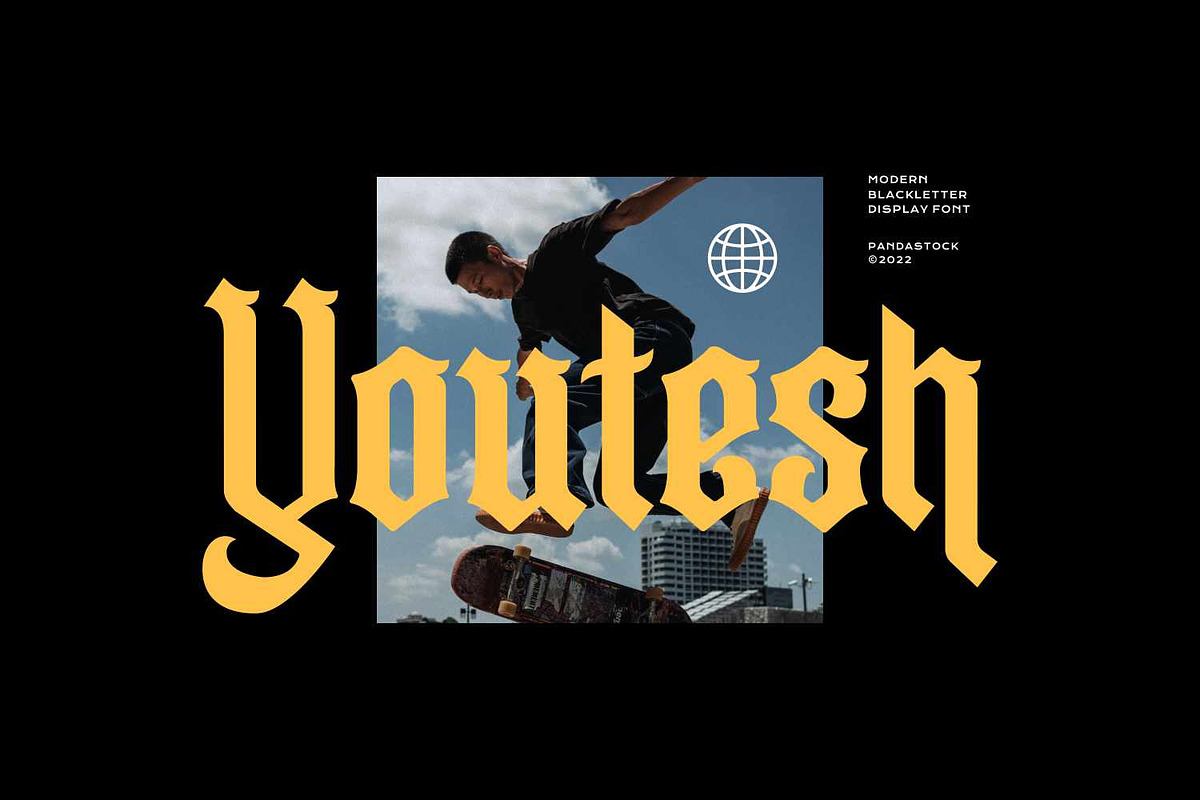
Youtesh Vintage Retro Fonts Free Download
You must purchase this font for commercial use. However, you can download Youtesh Vintage Retro Fonts Free Download for testing purposes. Youtesh is a bold and stylish vintage retro font, designed to evoke a nostalgic feel with modern flair. Perfect for logos, posters, branding, merchandise, and any project that needs a retro-inspired look, this font brings a creative and vintage aesthetic to your designs.
The combination of strong letterforms and retro design elements in Youtesh makes it ideal for projects related to music, fashion, events, or branding that want to capture the essence of the past with a contemporary twist. Whether you’re working on a retro-themed event or crafting a nostalgic brand, this font will make your text stand out.